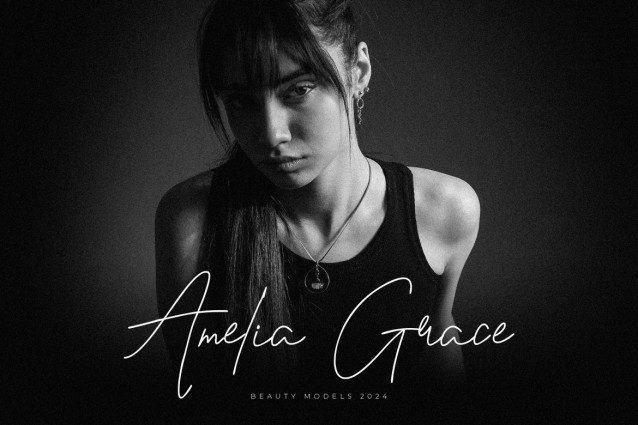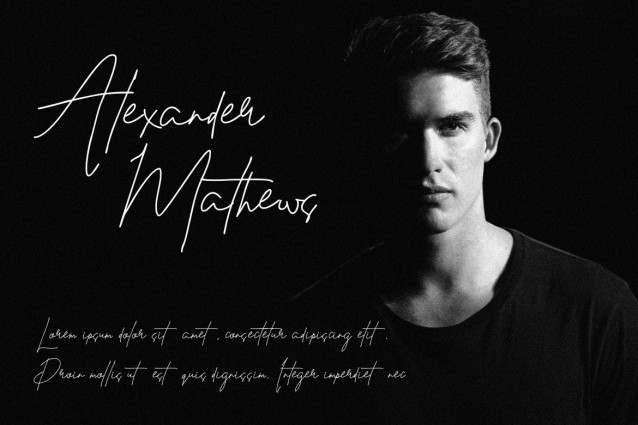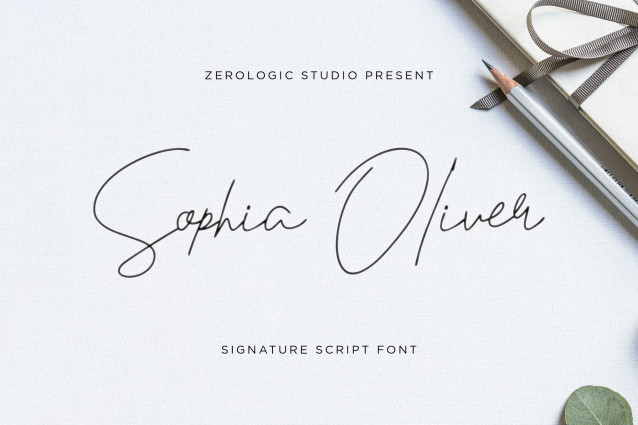
SophiaOliver Signature Typeface Font
Sophia Oliver is an elegant signature script font featuring a delicate monoline structure and fluid, handwritten curves. The typeface mimics natural handwriting with its airy loops, expressive ascenders, and a casual, sophisticated rhythm that feels personal and bespoke.
Natural fits include wedding stationery, luxury branding, photography watermarks, cosmetics packaging, and high-end fashion labels. It works beautifully for signatures, personal branding, invitations, and editorial layouts where an intimate, hand-penned touch is desired.